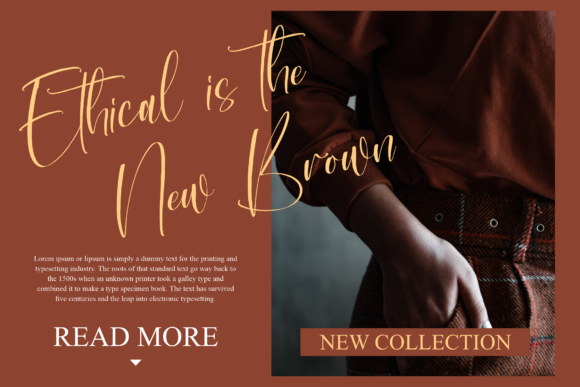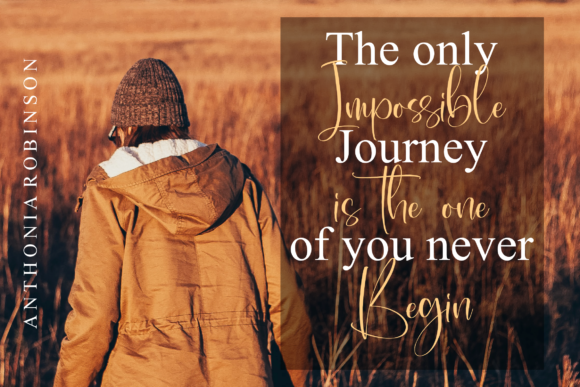
Brittanyla Font
db-ku.com - Script & Handwritten -- Brittanyla is a beautiful script font that can work really well for more sophisticated projects. It will add a touch of luxury and style to your branding and logo design projects.